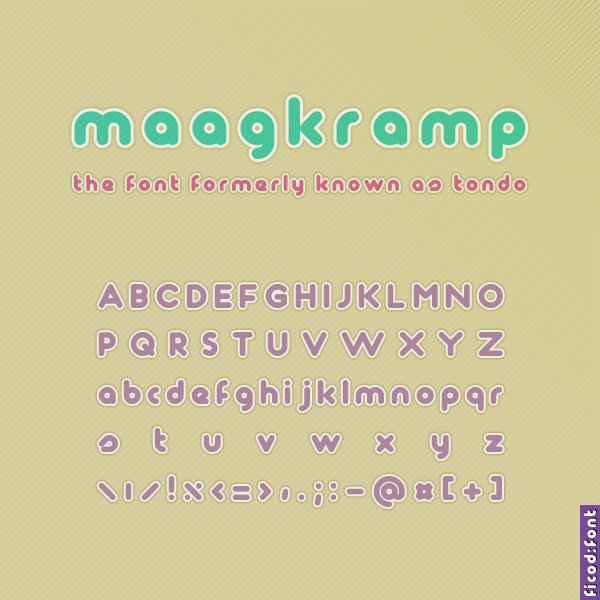
Portal
Author: Fontfabric
Description: “Portal font is applicable for any type of graphic design – web, print, motion graphics etc and perfect for t-shirts and other items like logos, pictograms.”
Facet
Author: Fontfabric
Description: “Facet is applicable for any type of graphic design – web, print, motion graphics etc and perfect for t-shirts and other items like logos, pictograms.”
Quicksand
Author: Andrew Paglinawan
Description: A thin and rounded font, ideal for headings and logos. It is also available for web use, from Google Fonts.
Amputa Bangiz
Author: Quiccs Maiquez
Description: A futuristic and geometric font, I am sure some of you will find proper use out of it. But be advised, you have to adjust the kerning in order to get the maximum interaction between some letters.
Maagkramp
Author: Ficod
Description: This font was previously known as Tondo, but the name was changed due to copyright issues. Naming issues aside, it is a thick looking playful and rounded font, ideal for headings and logos.